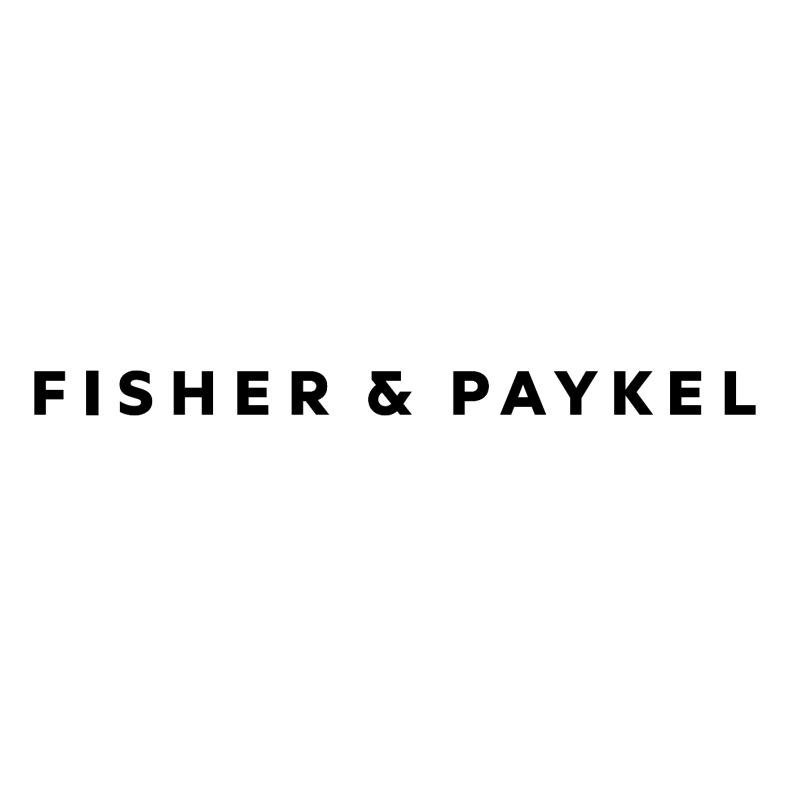
Fisher & Paykel Font
Fonts in UseFisher & Paykel is a New Zealand-based appliance manufacturer known for its innovative and high-quality home appliances. They offer a wide range of products including refrigerators, dishwashers, ovens, and washing machines.
The logo font seems like Metric Bold with a customized ampersand. Metric, is a geometric sans font family released in 2011 by New Zealand's Klim Type Foundry, offering seven weights from Thin to Black with matching italics.